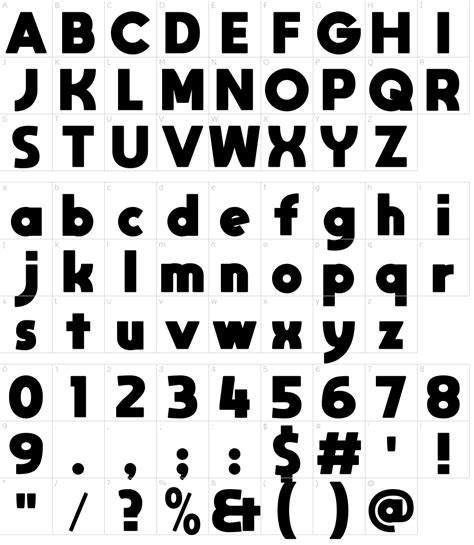
Moon Get! free font
Moon Get Font. Web moon get! is a typeface base on the you got a moon! text and other various hud elements of the nintendo switch game.
Web moon get! is a typeface base on the you got a moon! text and other various hud elements of the nintendo switch game.
Web moon get! is a typeface base on the you got a moon! text and other various hud elements of the nintendo switch game. Web moon get! is a typeface base on the you got a moon! text and other various hud elements of the nintendo switch game.